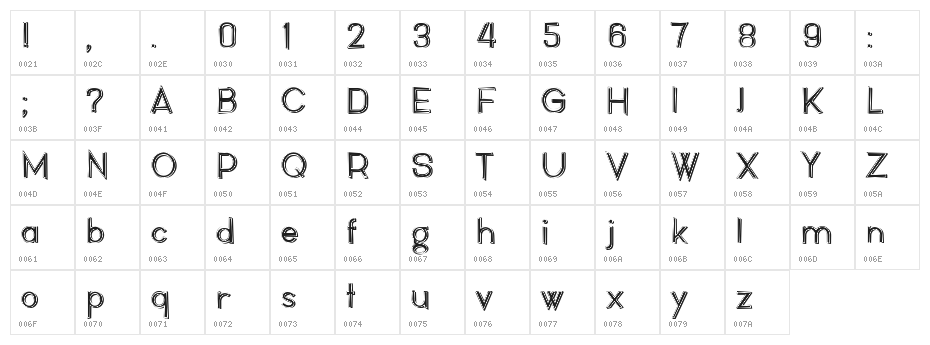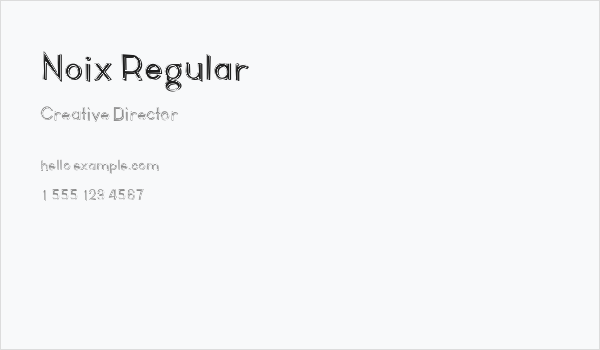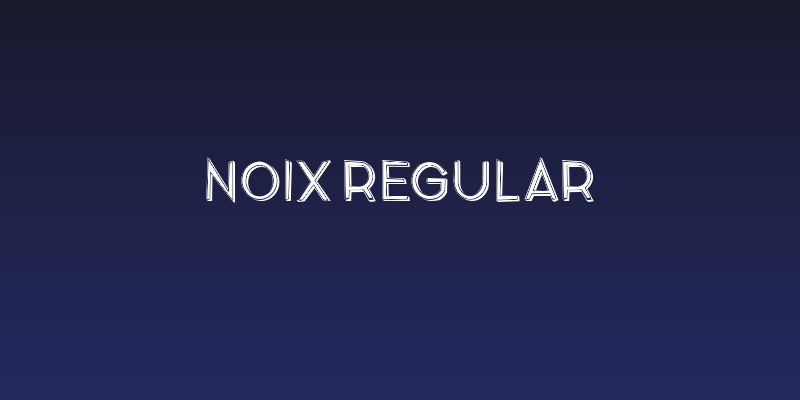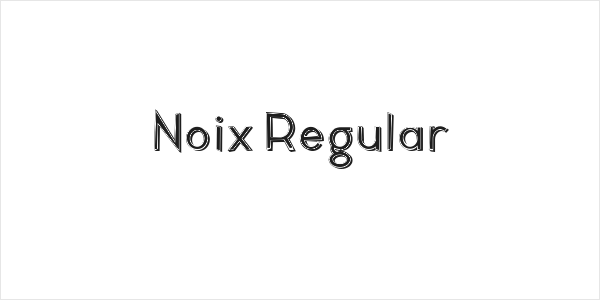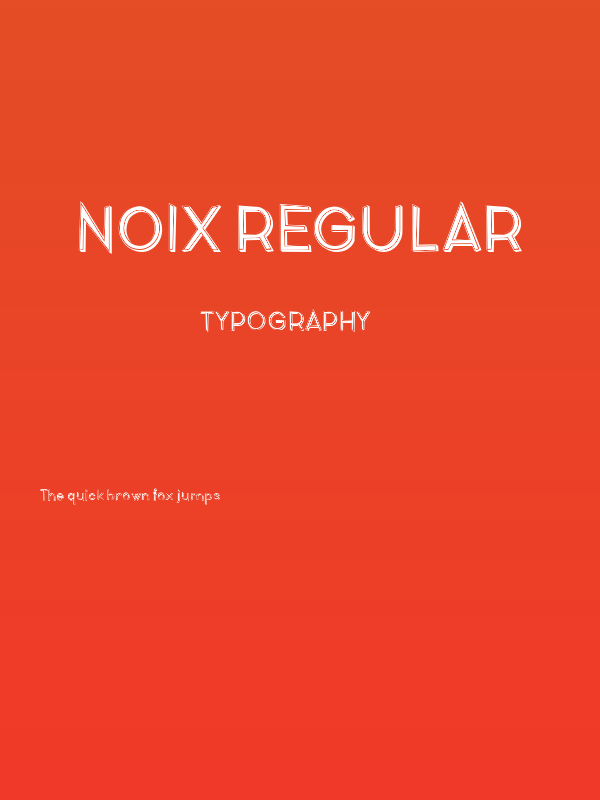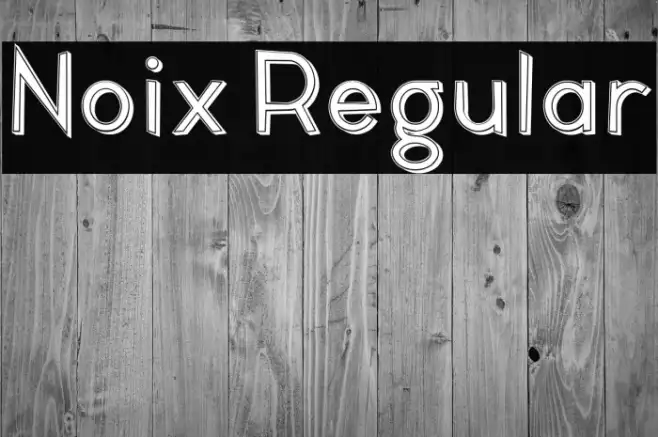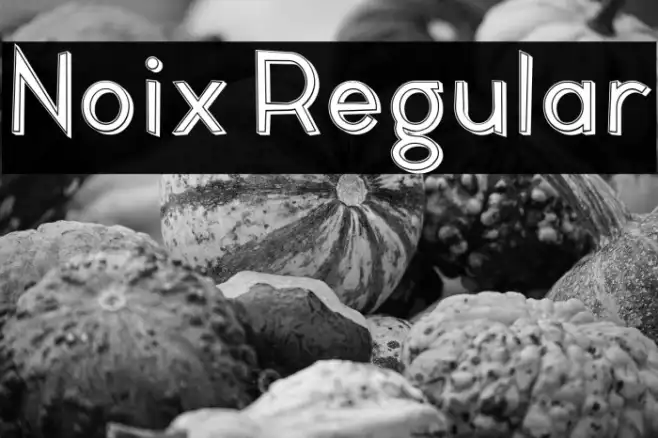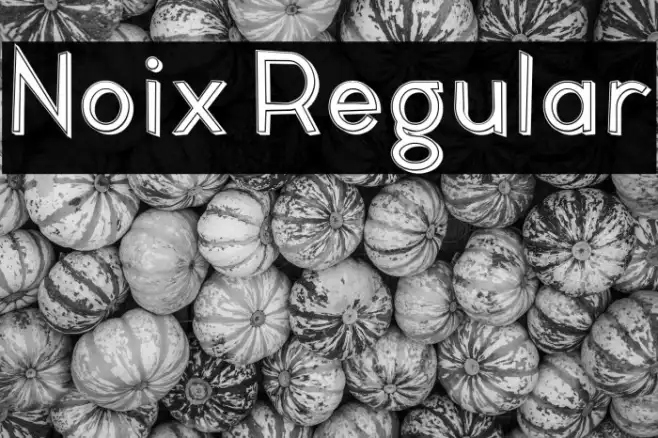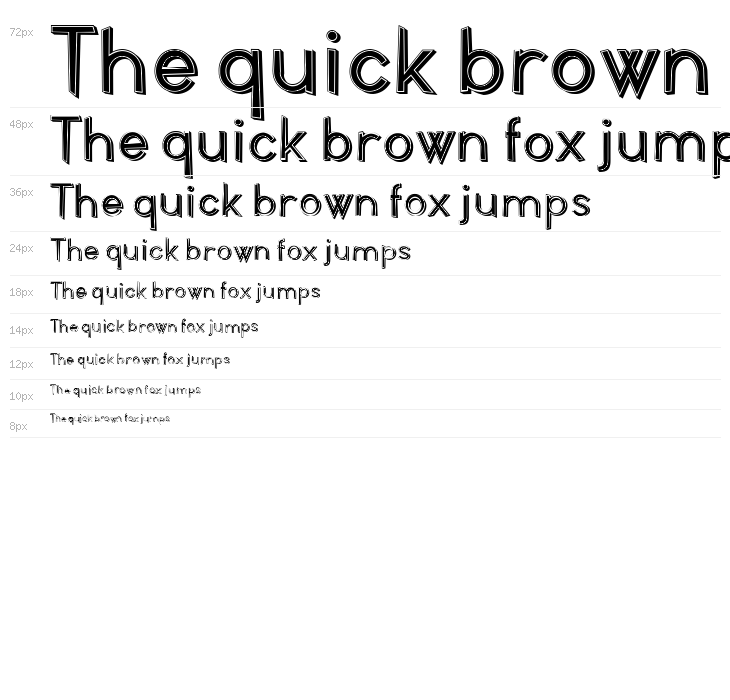
Noix Regular Font
Noix Regular Description
This font features a bold, decorative style with a unique outline effect that gives it a three-dimensional appearance. The uppercase and lowercase letters are designed with a consistent stroke width, creating a balanced and harmonious look. The numerals are clear and distinct, maintaining the same bold outline as the letters. Special characters are included, matching the overall aesthetic. The font's playful yet structured design makes it suitable for eye-catching displays and creative projects.
| Proposed Projects | Ideal for posters, headlines, branding, and any project requiring a striking visual impact. |